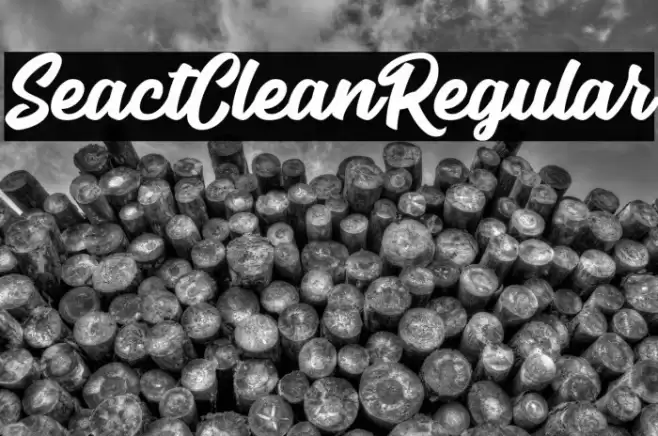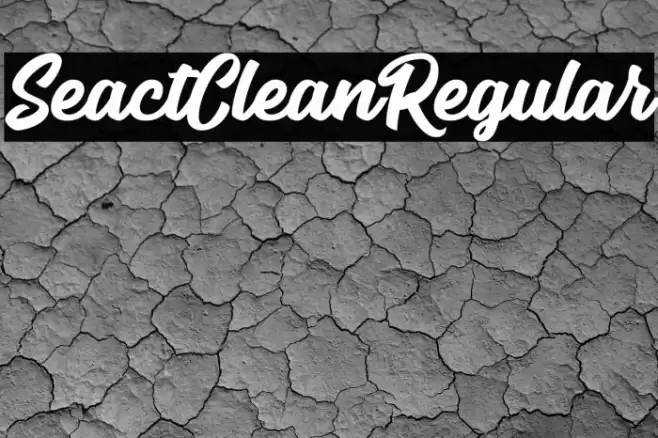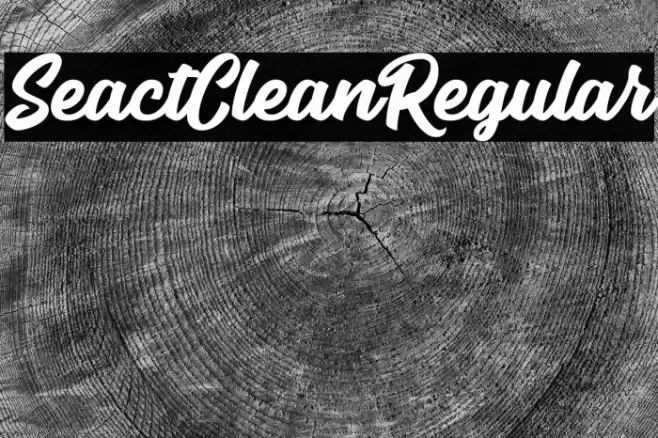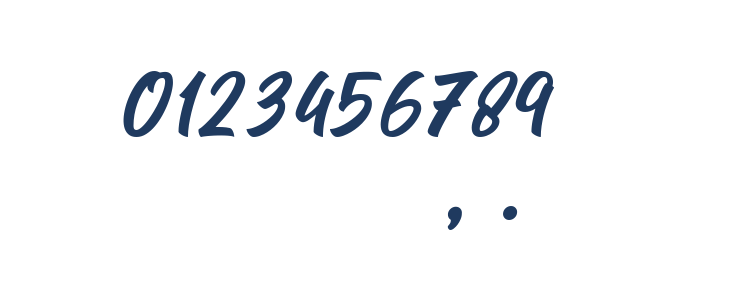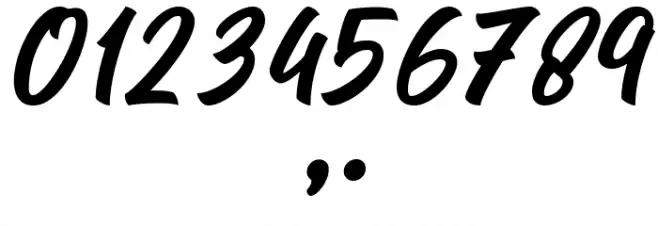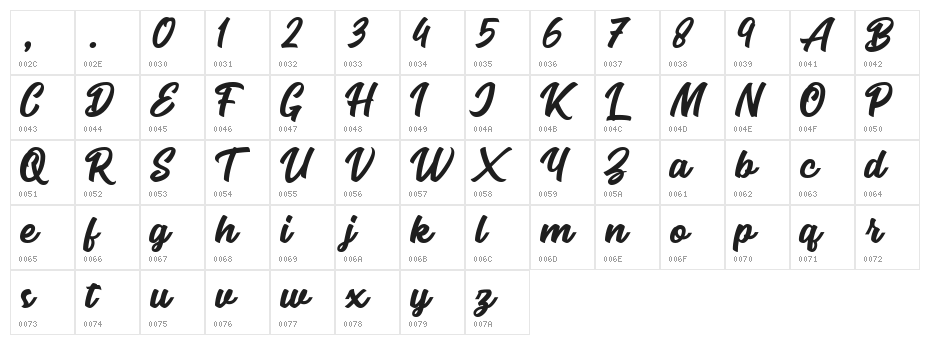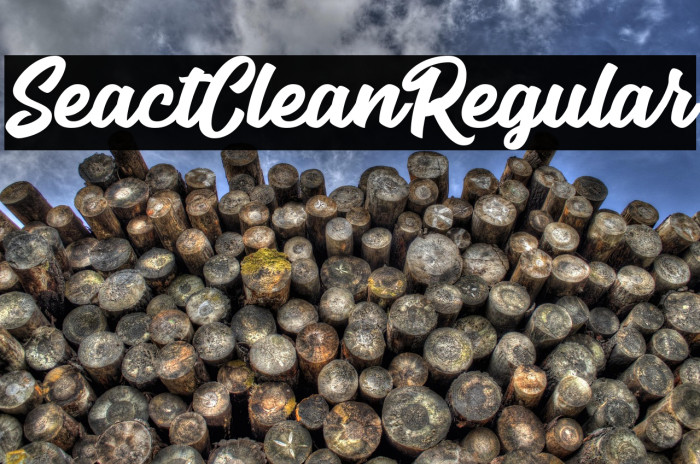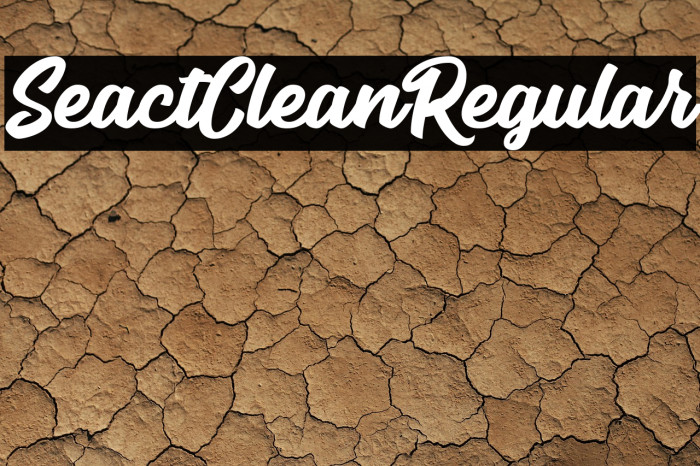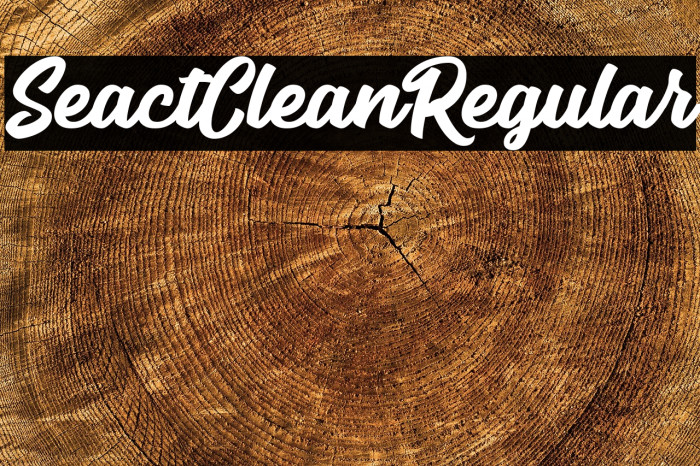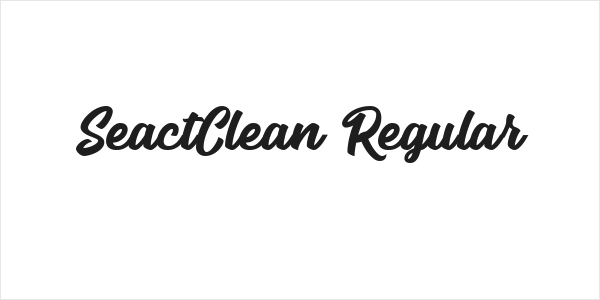
SeactClean-Regular Font
SeactClean-Regular Description
This font features a bold and dynamic script style, characterized by its fluid, cursive strokes that convey a sense of elegance and movement. The uppercase letters are prominently designed with sweeping curves and a slight slant, giving them a lively and energetic appearance. The lowercase letters maintain a consistent flow, enhancing readability while preserving the font's artistic flair. Numbers are crafted with the same attention to detail, ensuring they blend seamlessly with the alphabet. The special characters, including punctuation marks, are thoughtfully integrated, maintaining the overall aesthetic. This font's design is both expressive and versatile, making it suitable for various creative applications.
A bold, dynamic script font with fluid, cursive strokes and a lively appearance from Regular fonts.